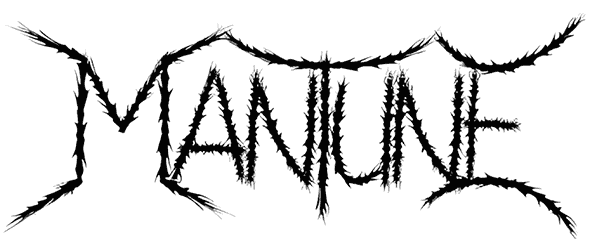
Since each font tells a different story, you must select the most cohesive one according to the content of your projects, and for casual work such as illustrations, street posters, stickers, or graffiti, an all-caps horror font like Mantune would be the best possible choice. In addition, it carries a sense of momentum, eeriness, eccentricity, or dread.